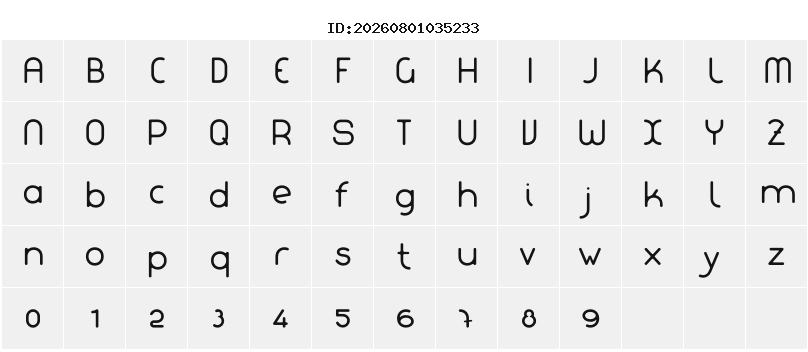
• Font Name: La chata
• Designer: deFharo
About La chata.otf
La chata.otf is a modern, elegant sans-serif font designed for ultimate readability and visual harmony. Perfect for branding, headlines, web design, and print materials.